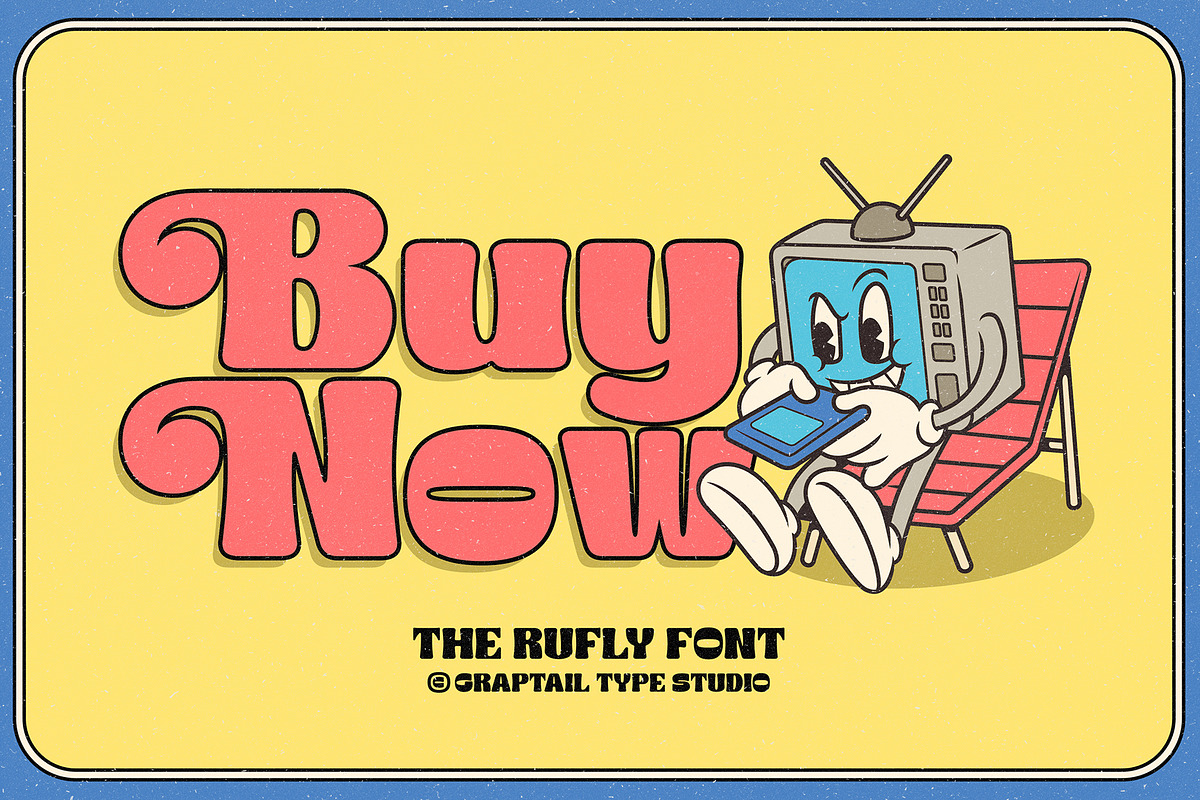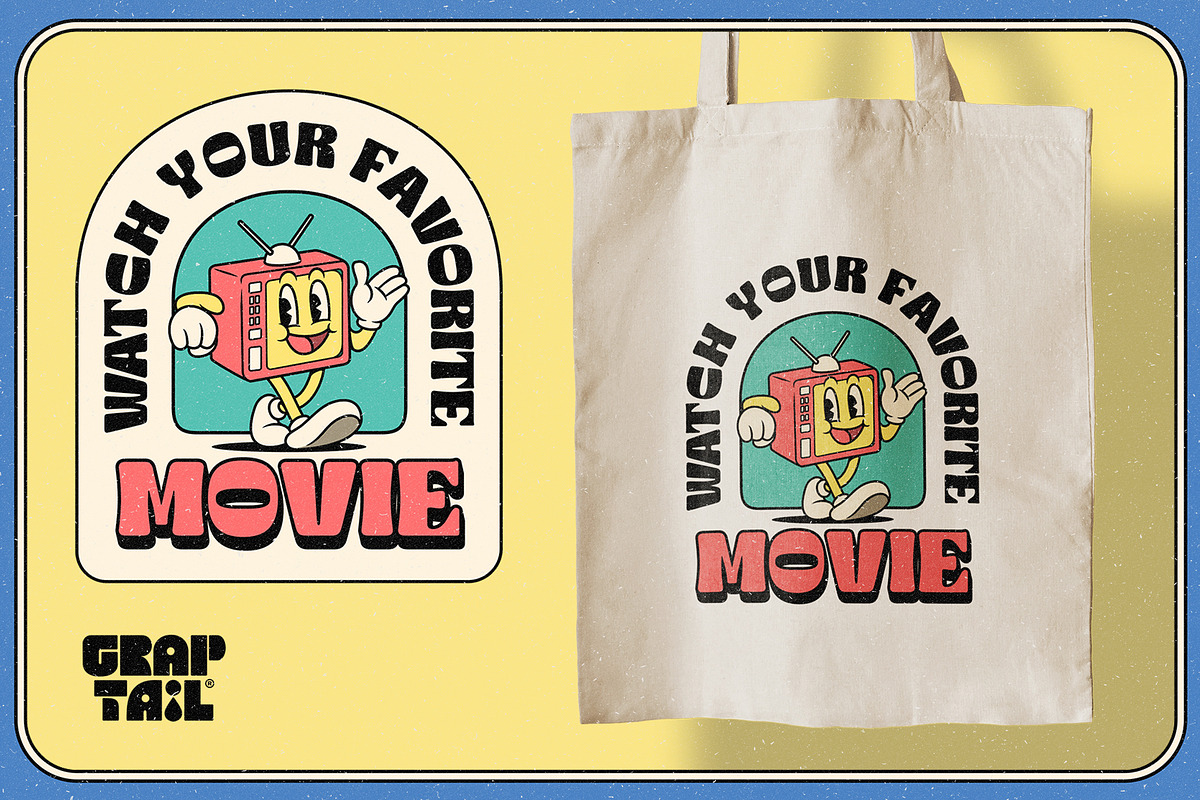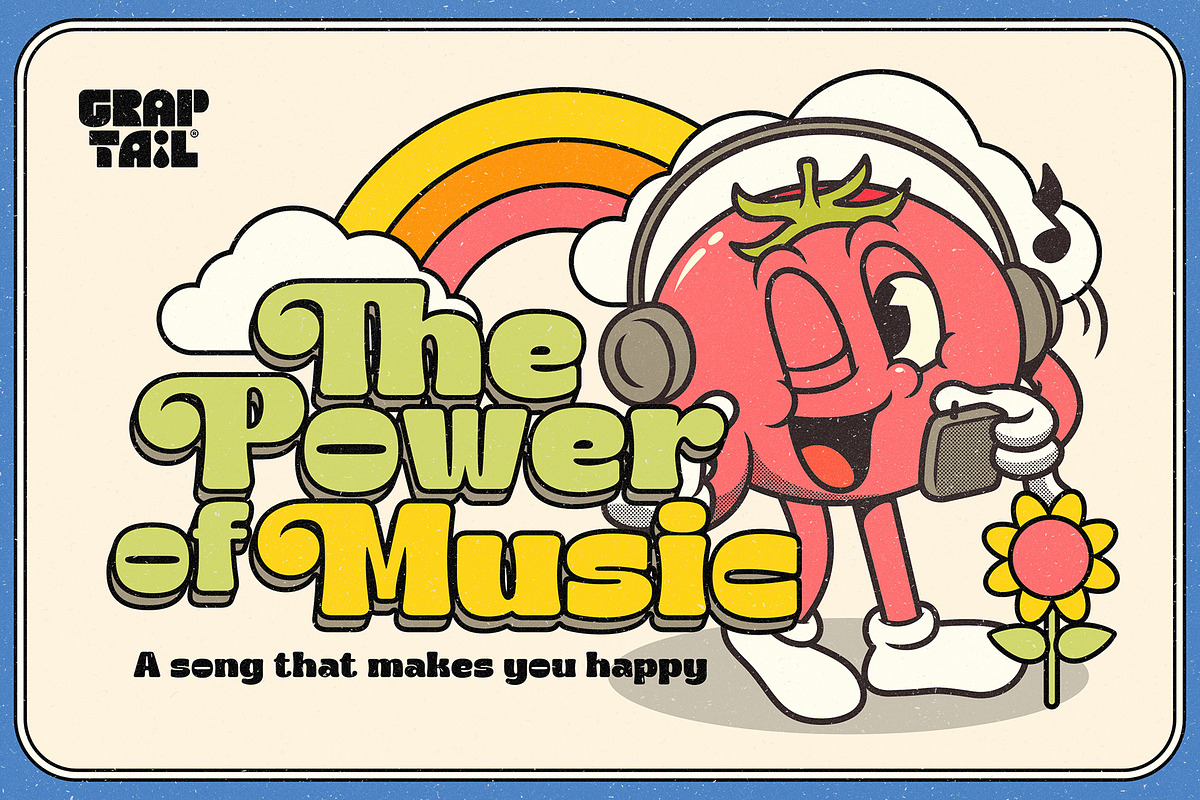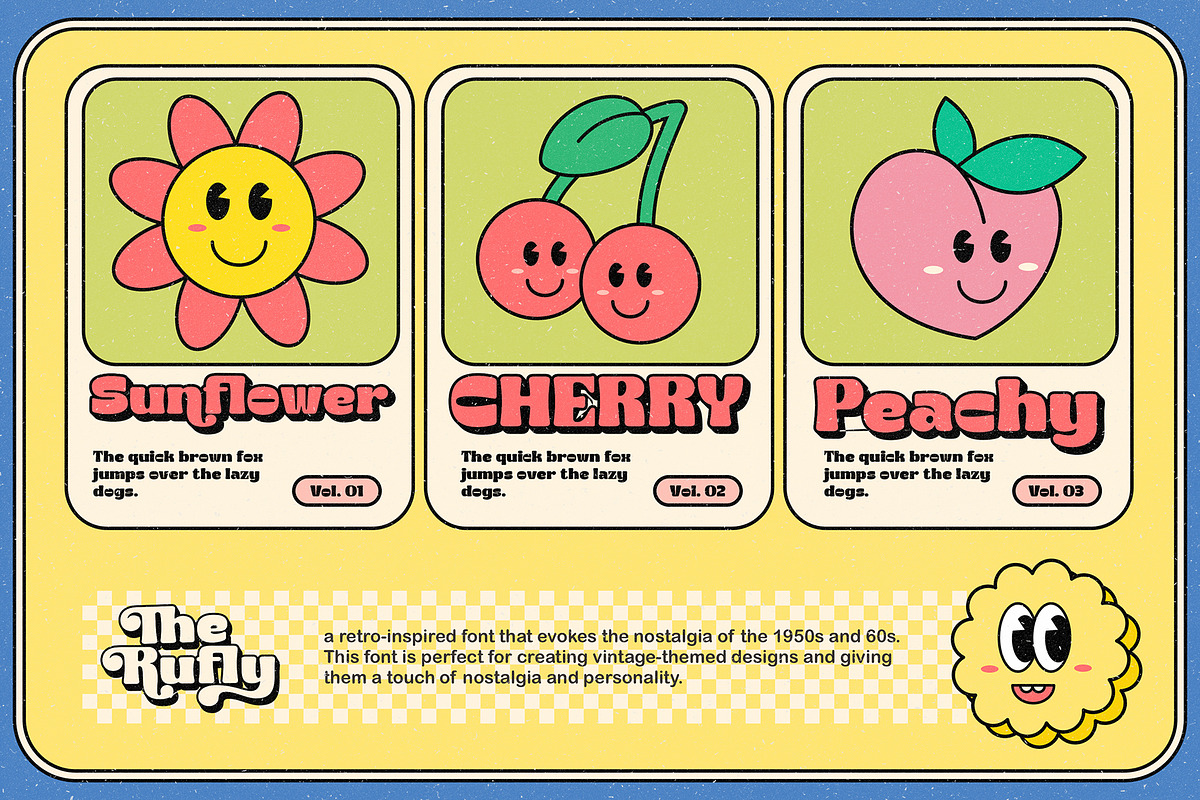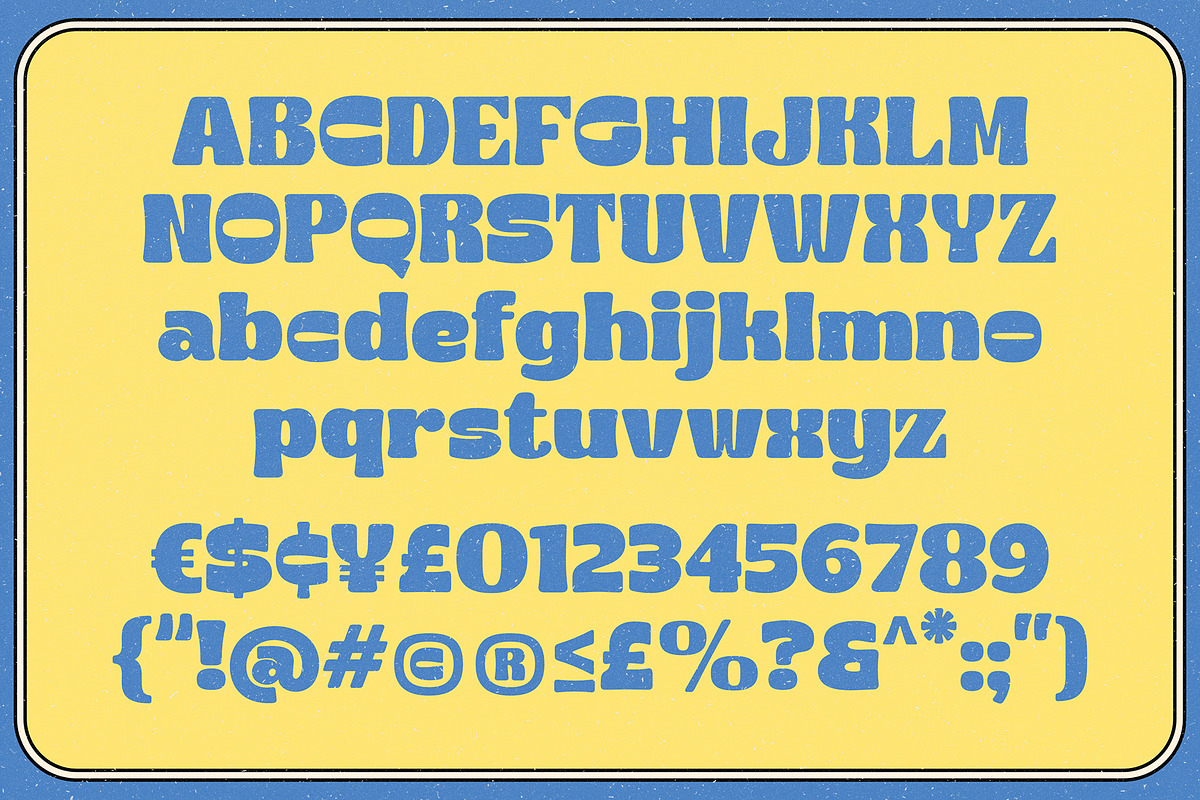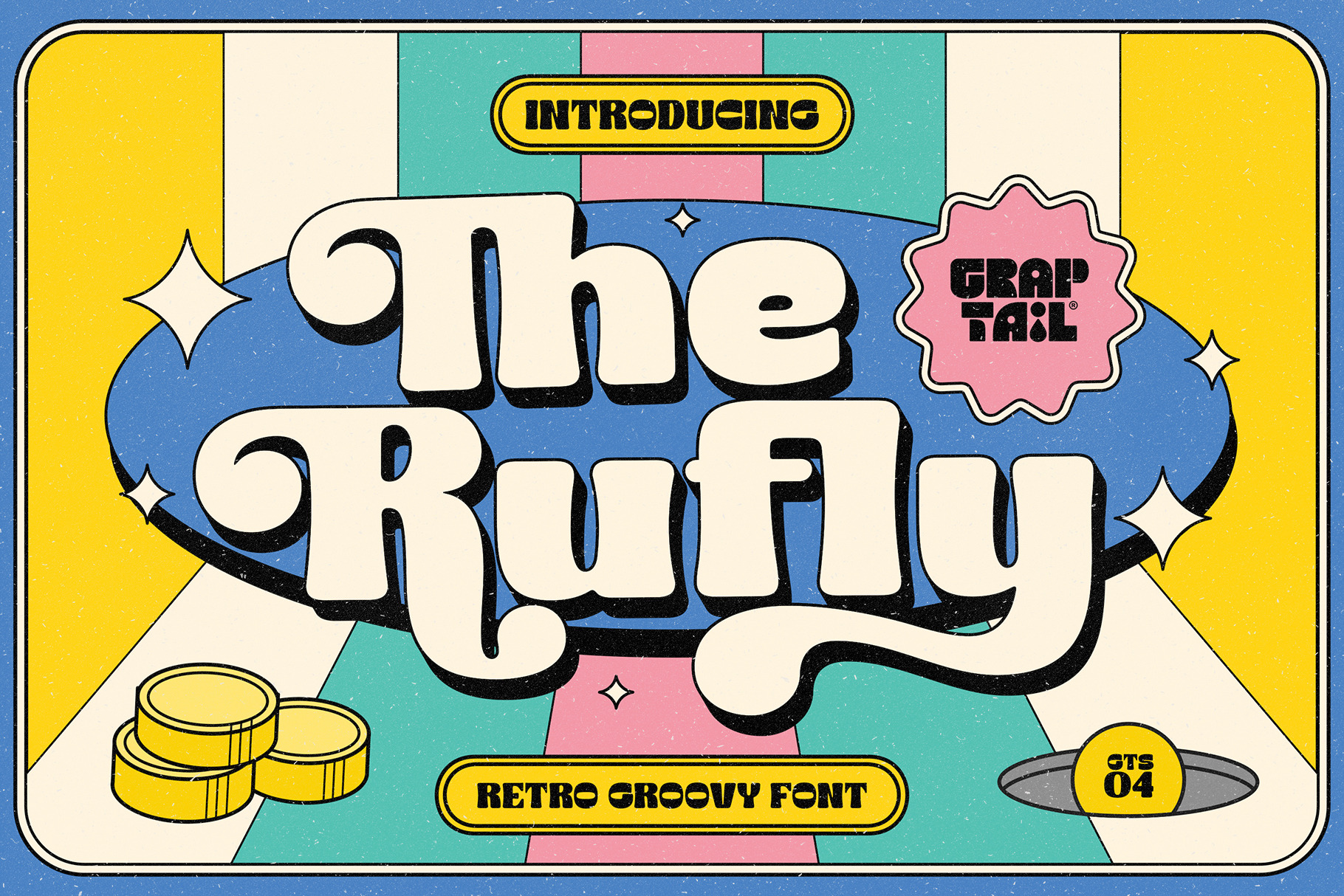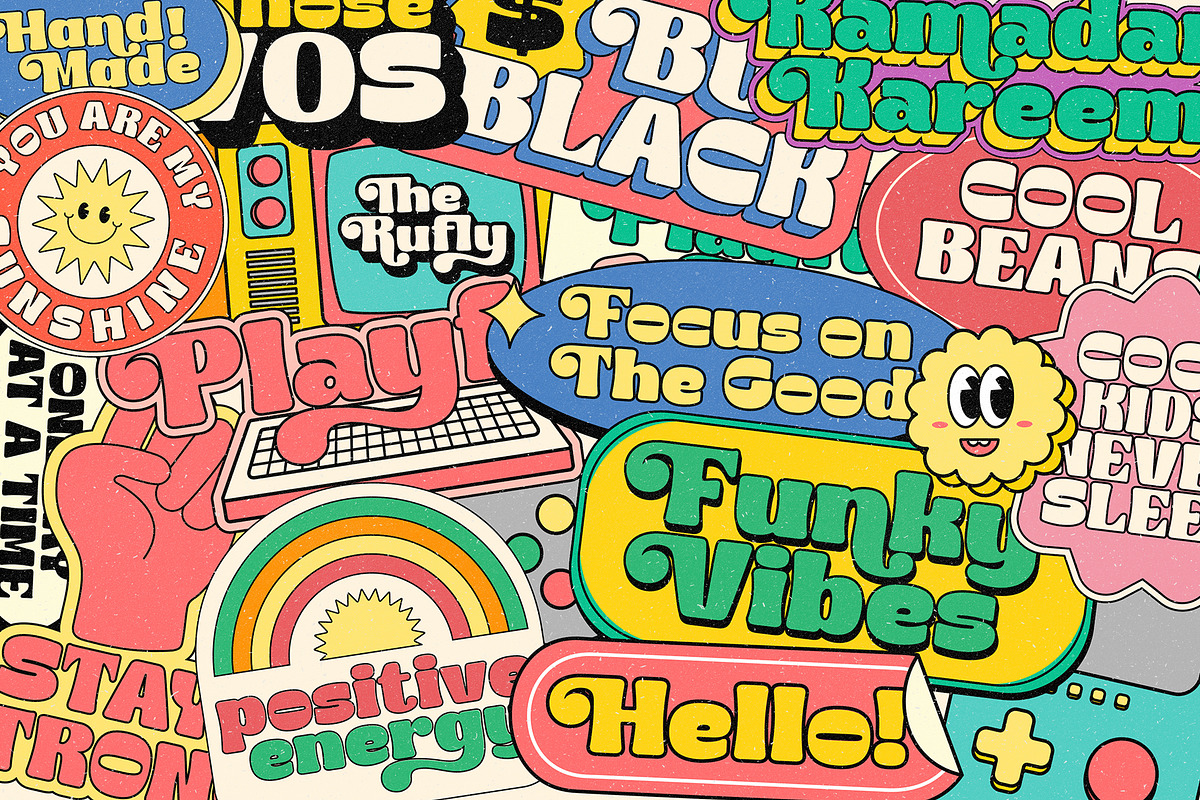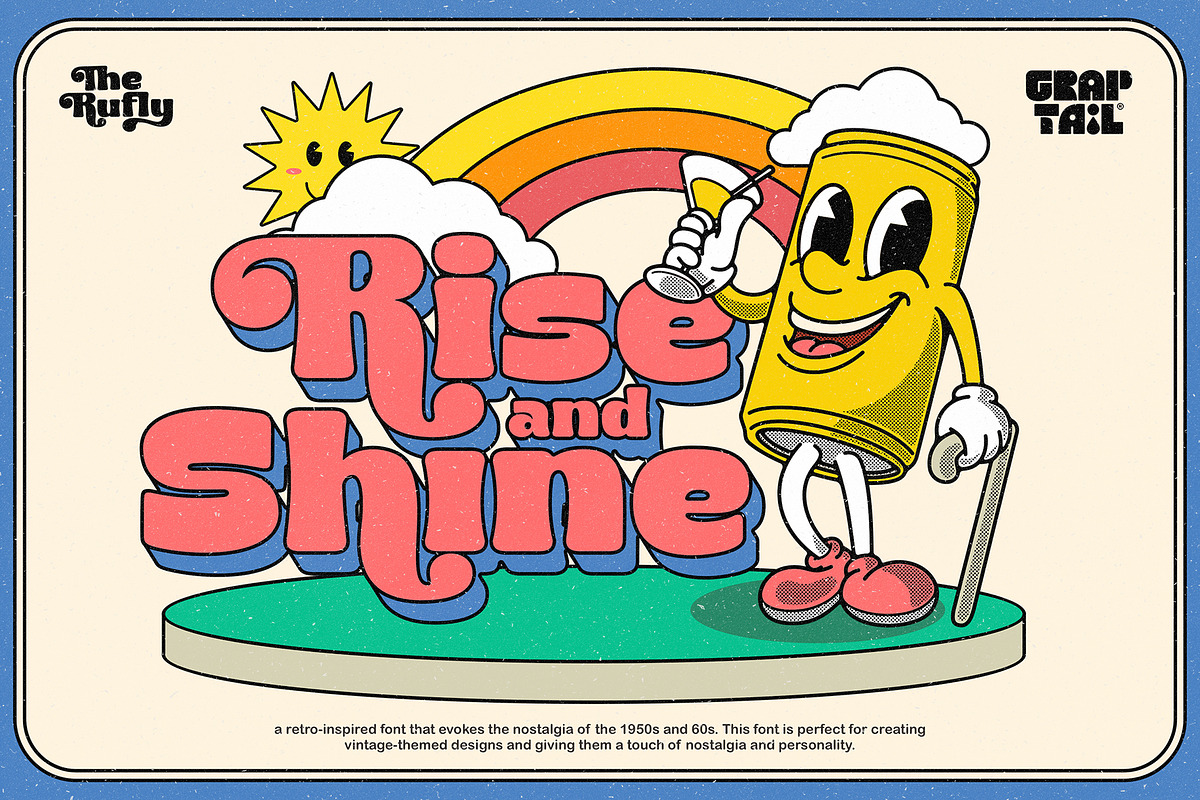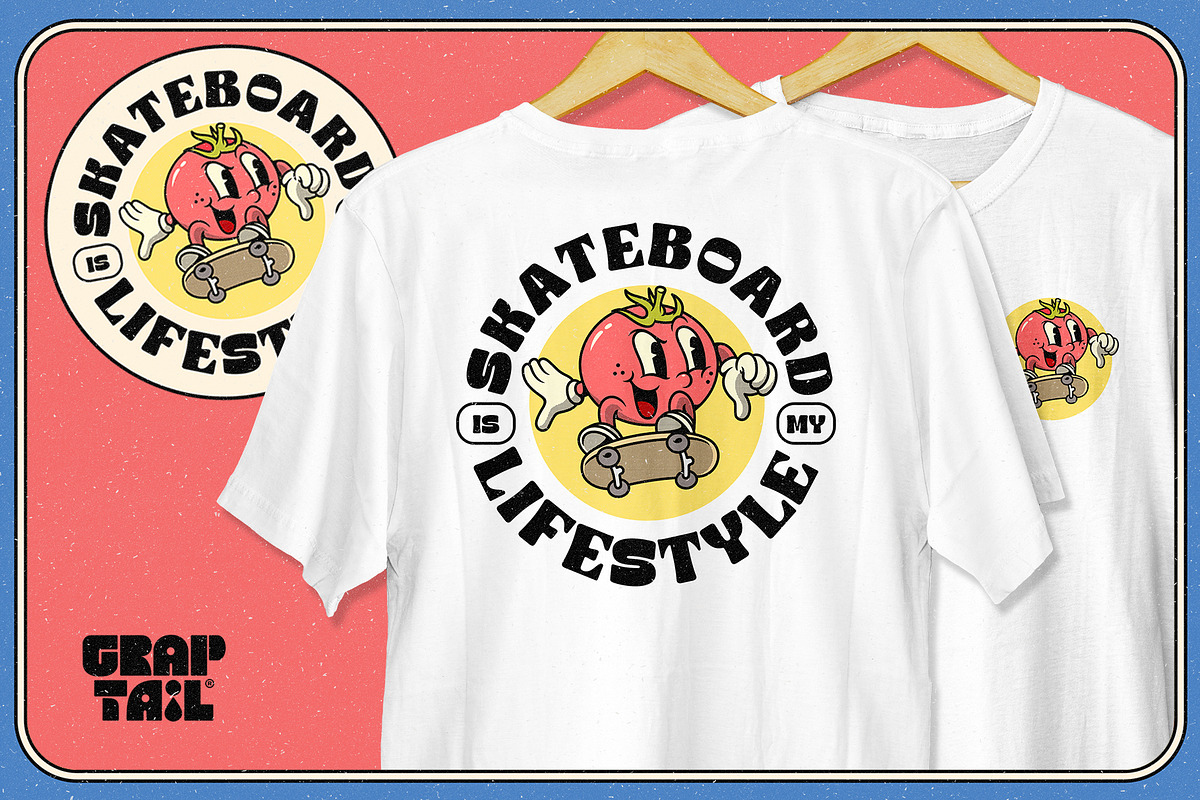
The Rufly - Retro Font
Introducing The Rufly, a retro-inspired font that evokes 1950s to 90s nostalgia. This font is perfect for creating vintage-themed designs and giving it a touch of nostalgia and personality.
The Rufly features a soft, solid design with curved corners and a unique letter shape. This font also includes a variety of alternative characters and ligatures, allowing you to create many different looks with the same font.
This font is perfect for creating nostalgic designs, such as retro/groovy posters, advertisements, and packaging. It's also great for creating unique and eye-catching titles and headings.
Choose The Rufly for a retro-style font that will add a touch of nostalgia and personality to your designs.